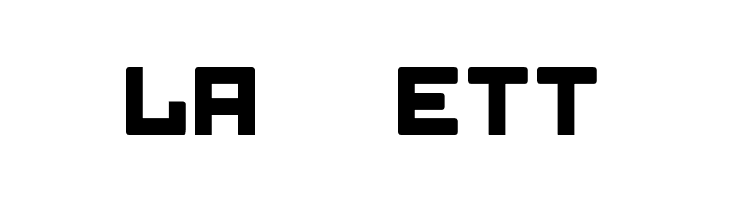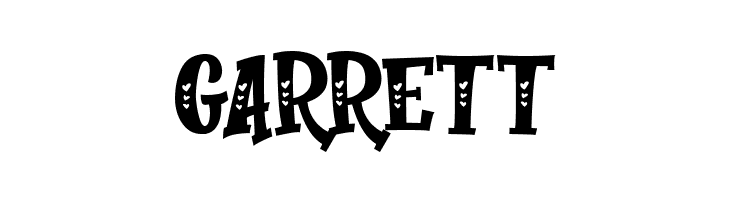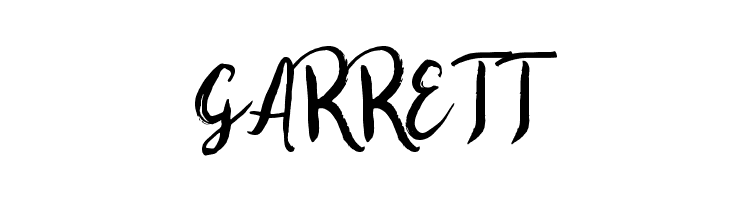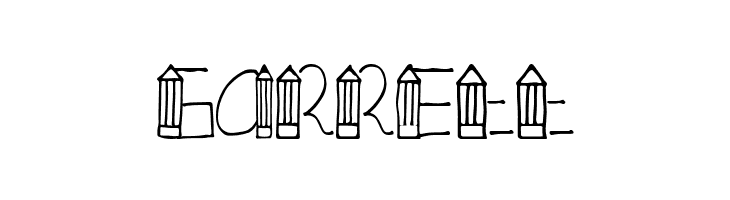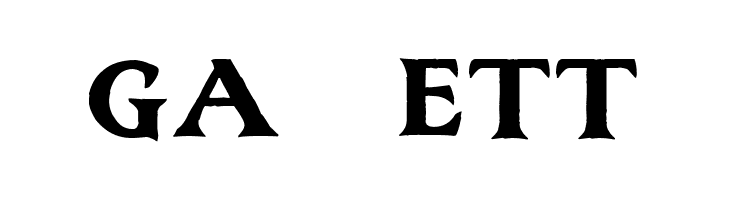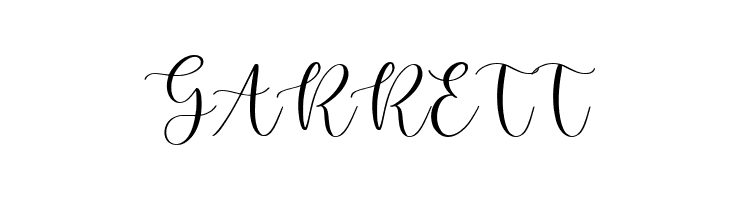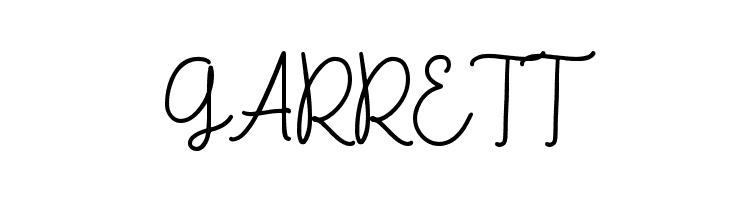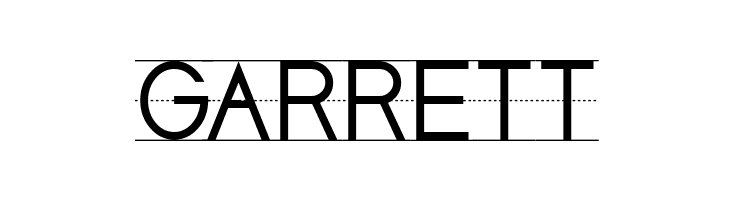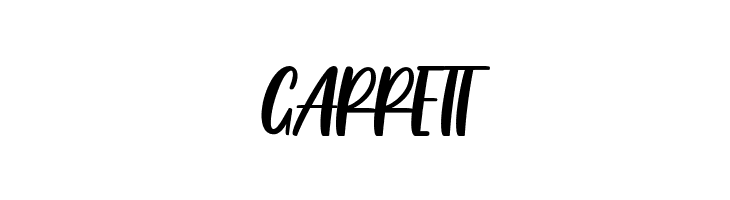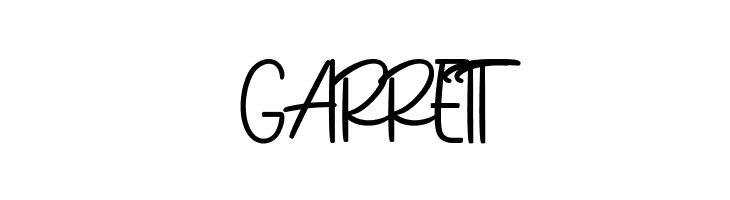
A playful, handwritten-style font with bold, rounded strokes.
A playful, handwritten font with smooth curves and a casual elegance.
A playful, bold font with rounded, thick strokes and a hand-drawn feel.
A bold, expressive handwritten font with fluid, dynamic strokes.
Casual handwritten font with a playful style.
A dynamic and elegant script font with flowing, artistic letterforms.
A bold, playful font with a hand-drawn, marker-like style.
A modern, geometric font with a futuristic and tech-inspired design.
A lively and dynamic script font with elegant, flowing connections.
A clean, structured font with a traditional penmanship style, offering clarity and elegance.
A playful font with characters designed to resemble pencils, perfect for educational themes.
A sophisticated cursive font with elegant, flowing lines.
A bold, geometric font with a three-dimensional shadow effect.
A bold, geometric font with strong, block-like letterforms.
A graceful, cursive script font with an elegant, handwritten style.
Bold, italic font with angular cuts and a dynamic style.
A bold, decorative font with heart-shaped cutouts and playful, dynamic characters.
A bold, expressive handwritten font with fluid, brush-like strokes.
A bold, geometric hollow font with a modern and futuristic style.
A bold, hollow, and geometric font with a modern, futuristic style.
A bold, geometric font with an inverse style and sharp angles.
A bold, geometric font with a futuristic and modern design.
An elegant and flowing script font with intricate loops and swirls.
A playful, handwritten font with smooth, flowing lines and a casual style.
A dynamic, cursive script font with fluid, expressive strokes.
A bold, medieval-inspired font with decorative swashes and sharp serifs.
A playful, handwritten font with bold, fluid strokes and a casual style.
Elegant cursive script with a handwritten style.
A smooth, flowing script font with elegant, connected letters.
A modern, handwritten font with elegant, fluid strokes.
A stylish, cursive script with expressive, fluid letterforms.